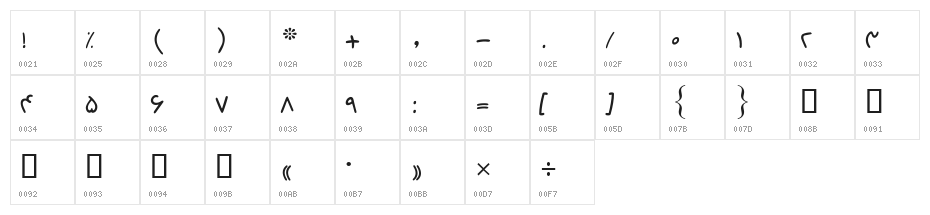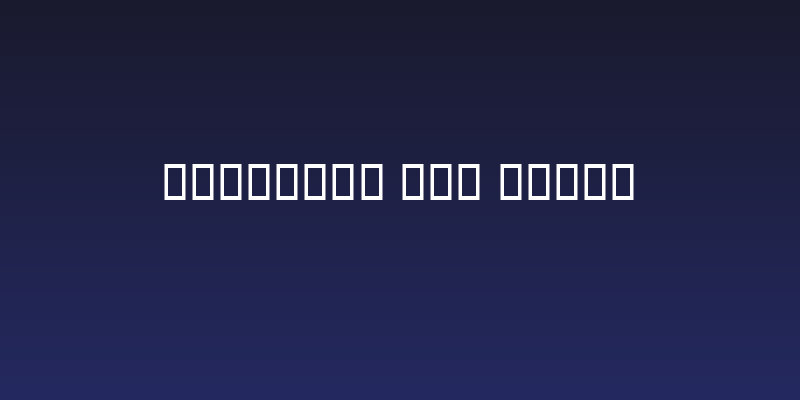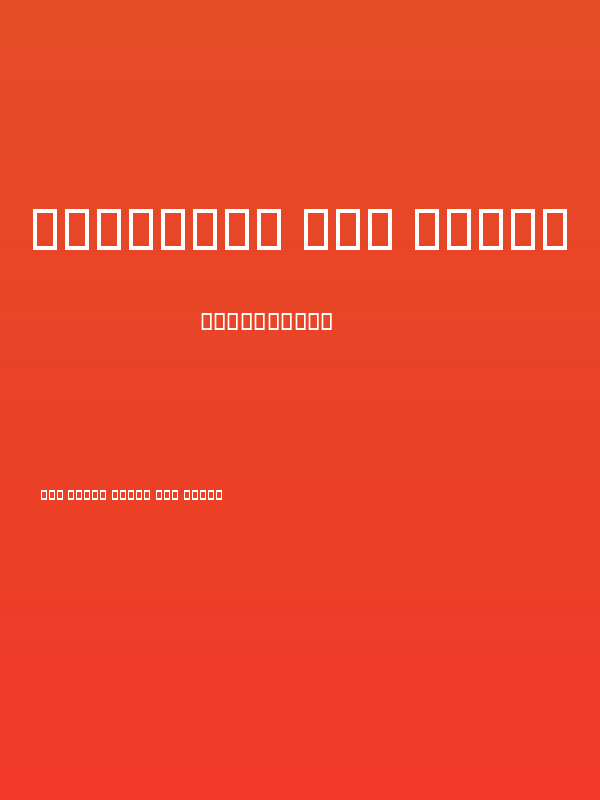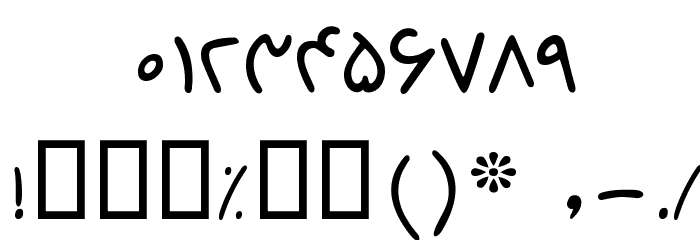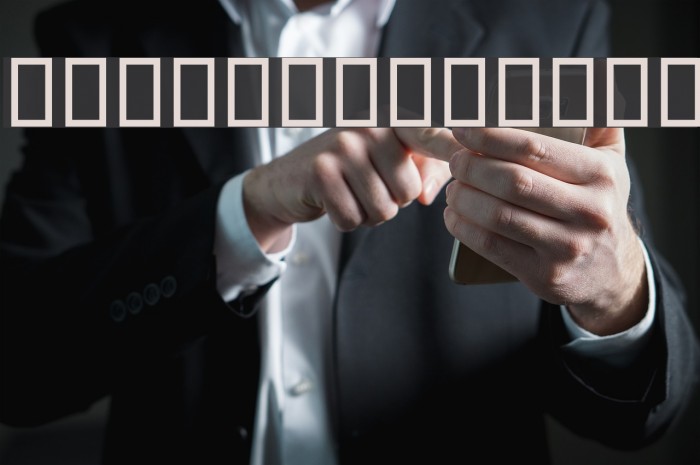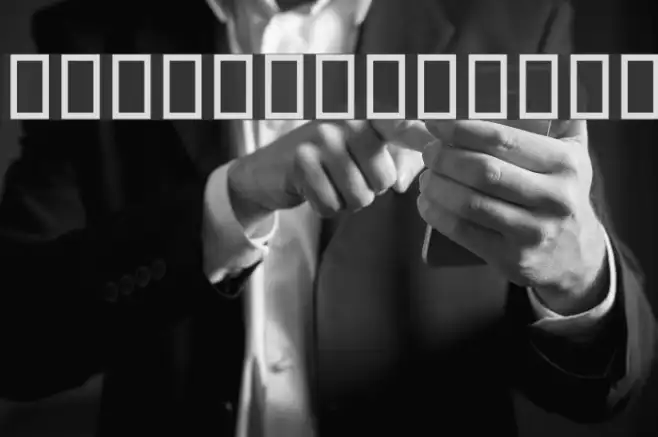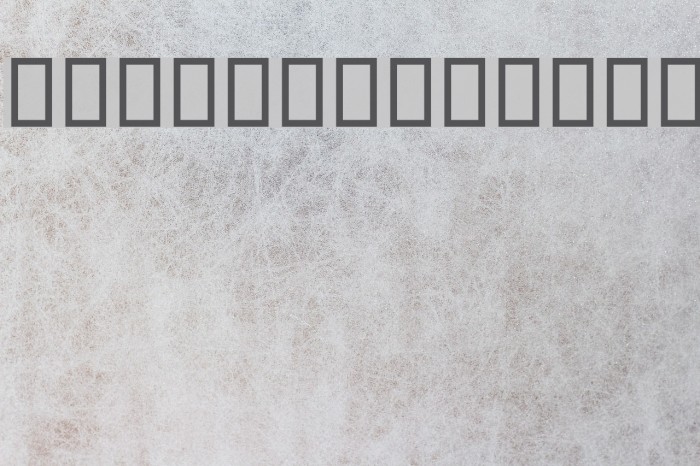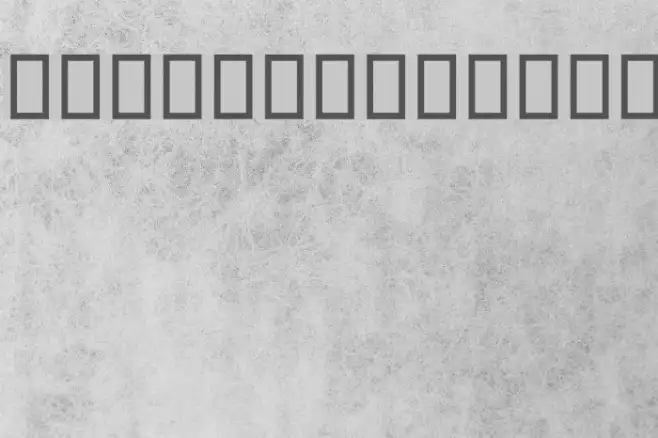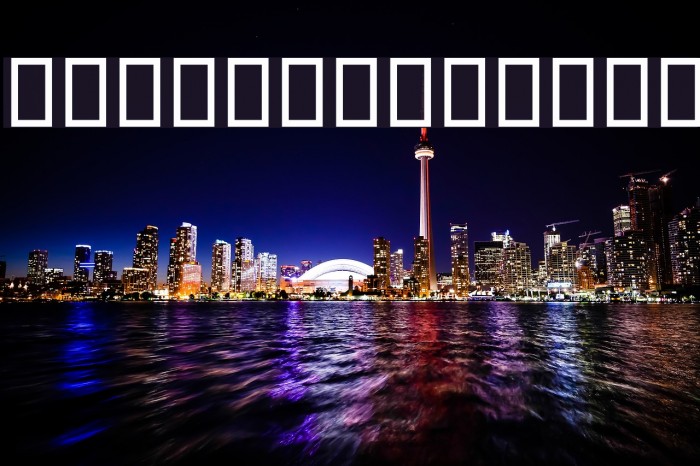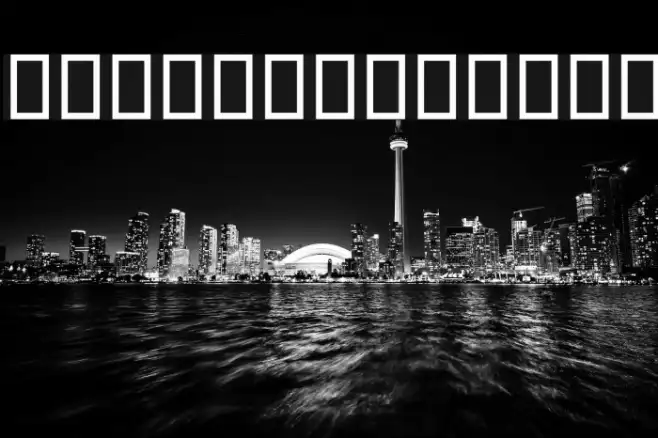
Destkhat Boy Light Font
Destkhat Boy Light Description
This font features a playful and casual handwritten style, characterized by its smooth and flowing curves. The letters are slightly slanted, giving it a dynamic and informal appearance. The strokes are consistent in thickness, contributing to a harmonious and balanced look. The numbers and special characters maintain the same playful aesthetic, making it suitable for creative and informal projects. The font's overall design is approachable and friendly, ideal for conveying a sense of warmth and personality.